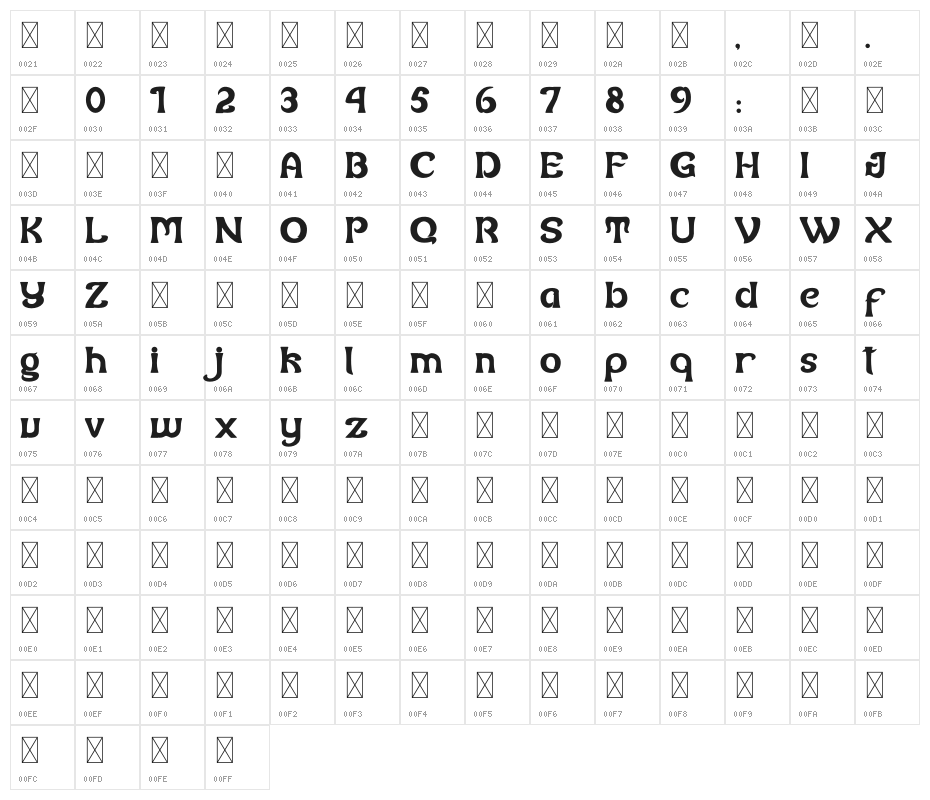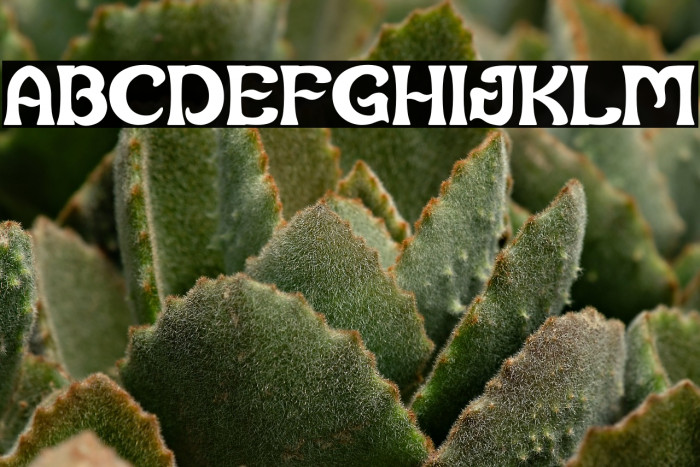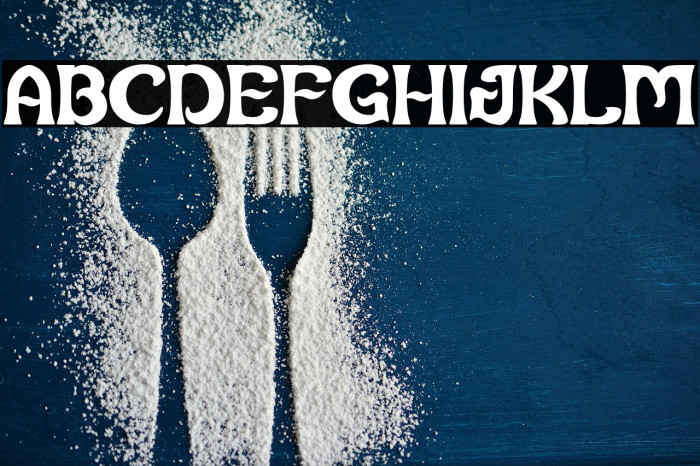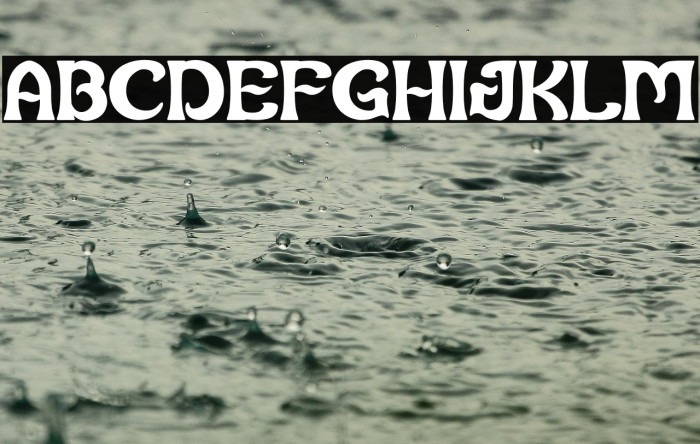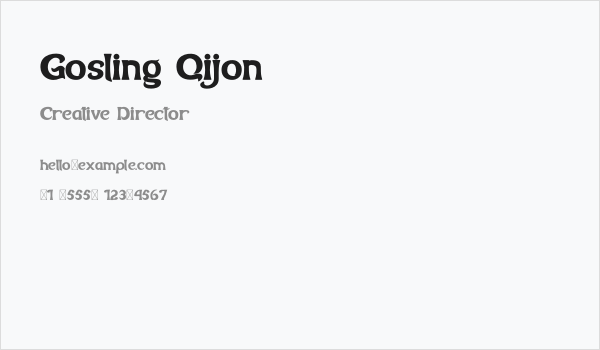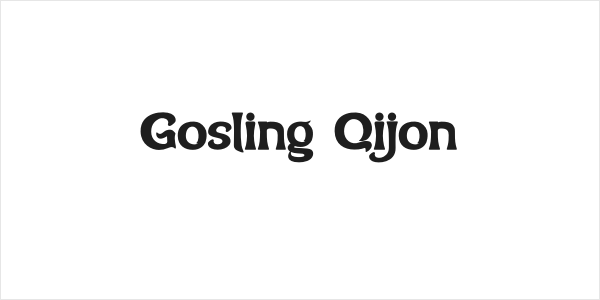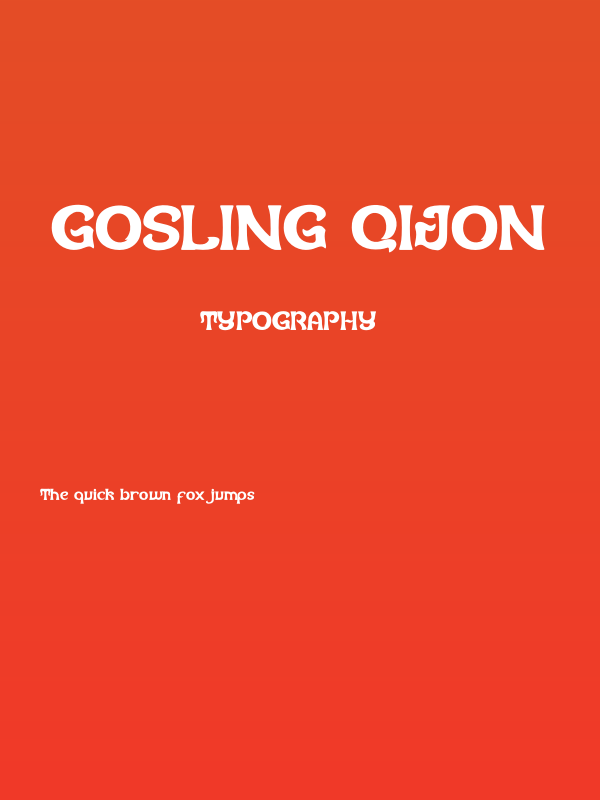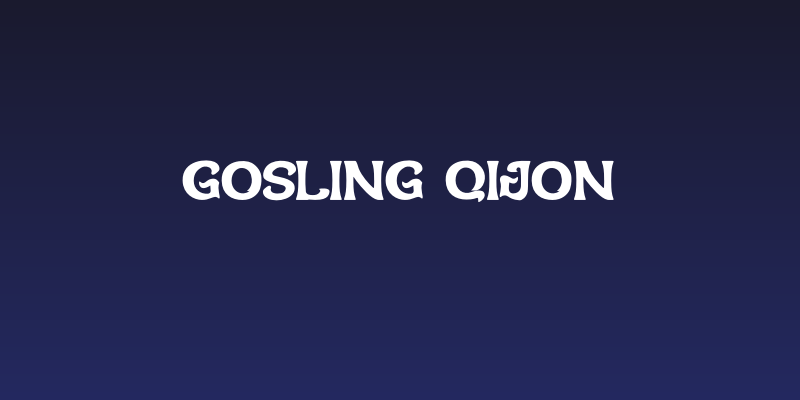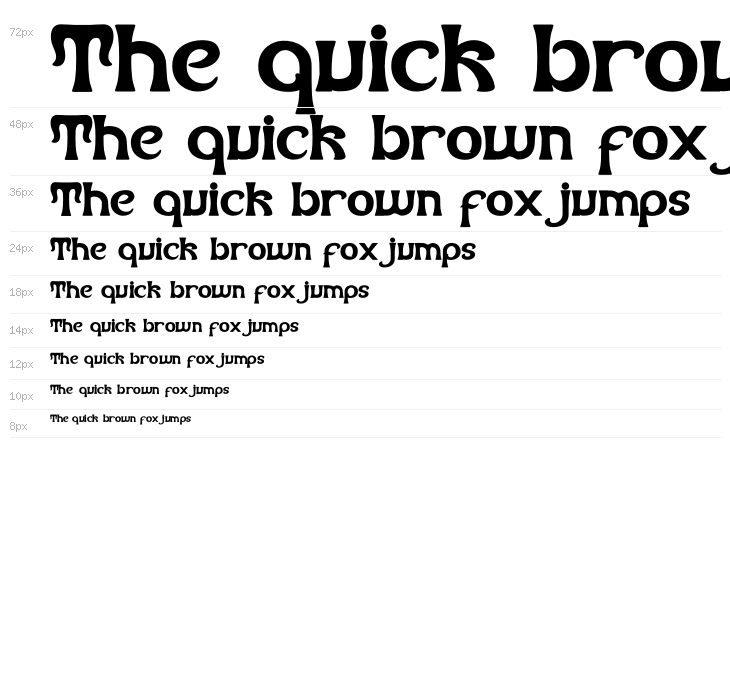
Gosling Qijon Font
Gosling Qijon Description
This font features a unique and artistic design, characterized by its bold and decorative style. The letters have a playful and whimsical appearance, with exaggerated curves and varying stroke thicknesses that create a dynamic and eye-catching look. The uppercase letters are particularly distinctive, with some characters having an almost calligraphic flair. The lowercase letters maintain the same playful style, ensuring consistency across the typeface. Numbers are bold and clear, making them easily readable while still maintaining the overall artistic theme. This font is perfect for projects that require a touch of creativity and flair, such as posters, invitations, or branding materials.
| Use Case | Headlines, Logos, Artistic designs |
| Proposed Projects | Ideal for creative projects like posters, invitations, branding, and artistic designs. |